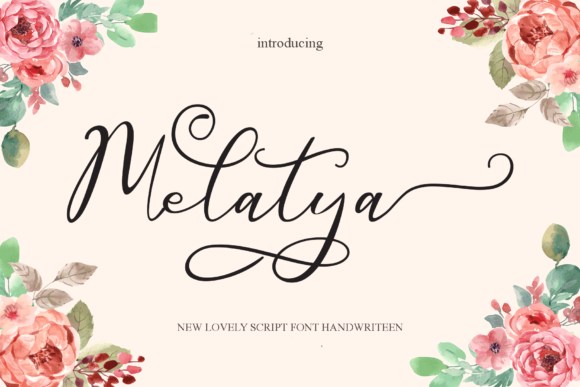
Prepare to be captivated by Melatya, an enchanting calligraphy typeface that will dance across your designs, leaving a trail of elegance in its wake. With its graceful curves and alluring ligatures, Melatya is the epitome of romance and sweetness.
Melatya is not just another font; it's an expression of your deepest desires, a reflection of your yearning for beauty and sophistication. It's perfect for those who seek to add a touch of luxury to their projects, whether it's a personal invitation, a memorable logo, or an unforgettable brand identity.
Its PUA encoding makes it a breeze to unleash the full potential of Melatya's glyphs and ligatures. With just a few clicks, you can transform your designs into works of art, captivating your audience with every stroke.
Melatya is more than just a font; it's a gateway to a world of limitless creativity. Its versatility knows no bounds, allowing you to infuse your designs with a touch of elegance and charm. Whether you're a seasoned designer or just starting your creative journey, Melatya will effortlessly elevate your work to new heights.
Each letter in Melatya is a masterpiece, crafted with meticulous attention to detail. Its curves flow seamlessly, connecting with a natural grace that mimics the beauty of a handwritten script. The ligatures, carefully designed to enhance the font's readability, add a touch of sophistication that will leave a lasting impression.
Melatya is the embodiment of timeless beauty, a font that transcends the boundaries of time. Its classic style will never go out of fashion, ensuring that your designs remain captivating for years to come.
So, why settle for ordinary when you can have extraordinary? Embrace the allure of Melatya and watch your designs blossom into masterpieces. Its romantic spirit and undeniable charm will captivate your audience, leaving them with a lingering sense of enchantment.